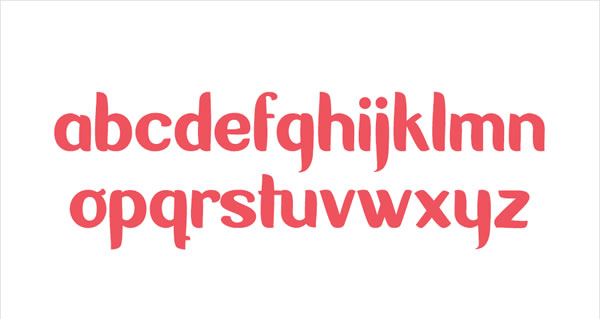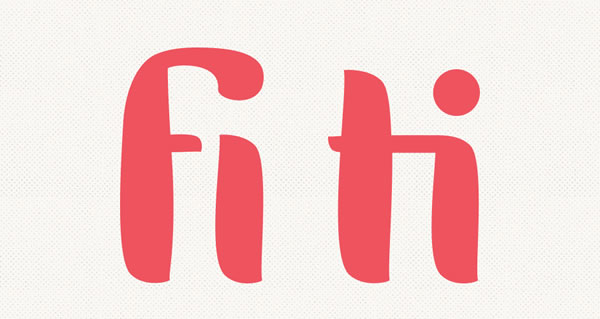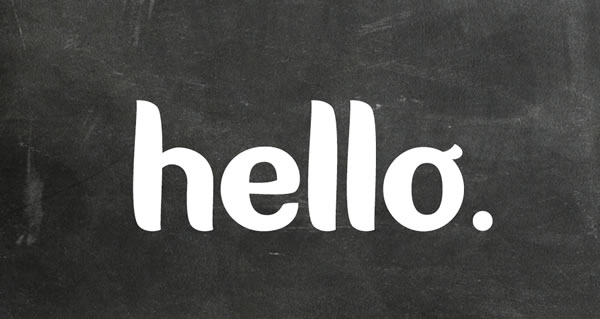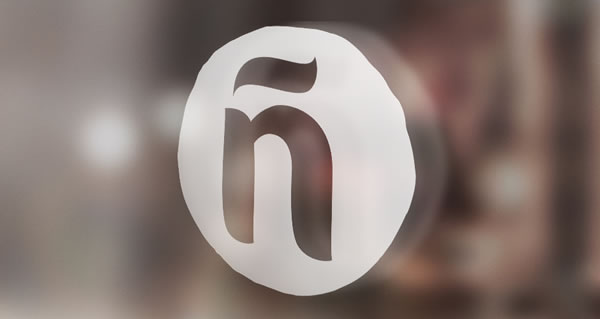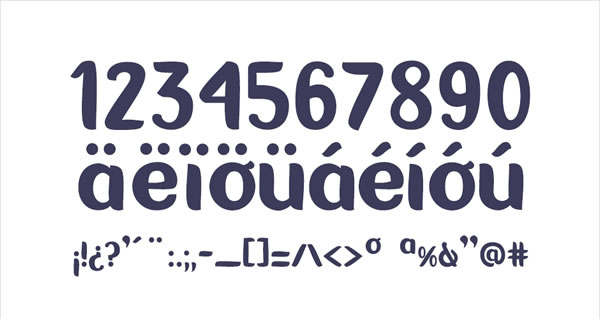
Introducing Coqueta Font: A Stunning Typeface with True Character
Are you tired of using the same old fonts for your designs? Look no further than Coqueta Font, a beautiful and unique typeface created by Puchu Rojas. Coqueta is a font that exudes personality and charm, making it perfect for designers and crafters who want to add a touch of authenticity to their work.
The Story Behind Coqueta Font
Coqueta Font is the brainchild of Puchu Rojas, a talented font designer who has poured their heart and soul into creating a typeface that stands out from the crowd. With a keen eye for detail and a passion for typography, Rojas has crafted a font that is both visually stunning and highly versatile.
What Makes Coqueta Font So Special?
So, what sets Coqueta Font apart from other fonts out there? The answer lies in its unique character. Each letter in the Coqueta Font features small decorations that add a touch of whimsy and personality to your designs. These decorations are carefully crafted to enhance the overall aesthetic of your work, making it perfect for a wide range of design projects.
Key Features of Coqueta Font
Here are just a few key features that make Coqueta Font a must-have for designers and crafters:
- Unique Character: Coqueta Font features small decorations on each character, making it a one-of-a-kind typeface that adds personality to your designs.
- Highly Versatile: Coqueta Font can be used for a wide range of design projects, from branding and advertising to packaging and digital media.
- Elegant and Sophisticated: Despite its playful decorations, Coqueta Font has an elegant and sophisticated feel that makes it perfect for high-end designs.
- Easy to Read: Coqueta Font is highly legible, making it perfect for body text and other applications where readability is key.
How to Use Coqueta Font in Your Designs
Coqueta Font is incredibly easy to use and can be incorporated into your designs in a variety of ways. Here are a few ideas to get you started:
- Branding and Identity: Use Coqueta Font to create a unique and memorable brand identity that sets you apart from the competition.
- Digital Media: Coqueta Font is perfect for digital media, including social media graphics, blog posts, and website headers.
- Packaging and Print: Coqueta Font can be used to create eye-catching packaging and print materials, including business cards, brochures, and flyers.
- Crafting and DIY: Coqueta Font is also perfect for crafters and DIY enthusiasts who want to add a personal touch to their projects.
Tips and Tricks for Getting the Most Out of Coqueta Font
Here are a few tips and tricks for getting the most out of Coqueta Font:
- Experiment with Different Sizes: Coqueta Font looks great in a variety of sizes, so don’t be afraid to experiment and find the perfect size for your design.
- Pair with Other Fonts: Coqueta Font pairs well with a variety of other fonts, so try combining it with other typefaces to create a unique look.
- Use it Sparingly: Coqueta Font is a bold and eye-catching font, so use it sparingly to avoid overwhelming your design.
Coqueta Font is a stunning typeface that is sure to add a touch of personality and charm to your designs. With its unique character, highly versatile design, and elegant feel, Coqueta Font is perfect for designers and crafters who want to create authentic and eye-catching work. Whether you’re working on a branding project, digital media, or a crafting project, Coqueta Font is a must-have font that is sure to impress.